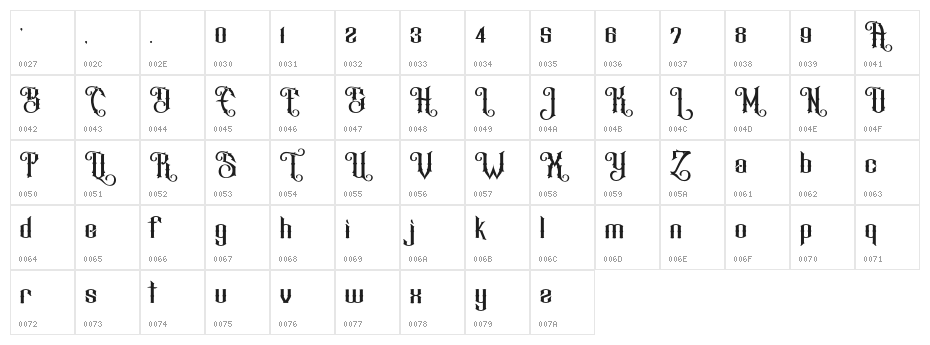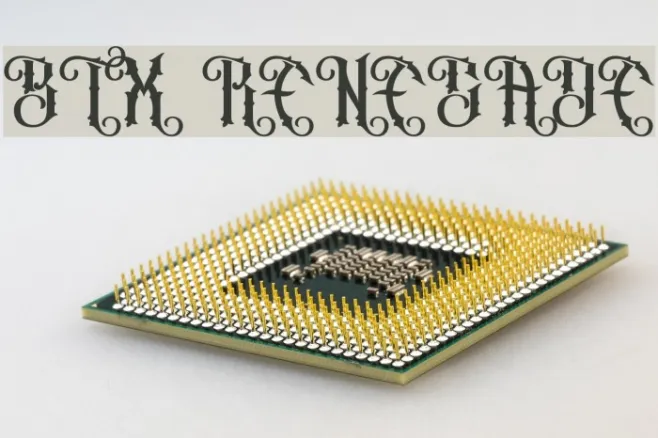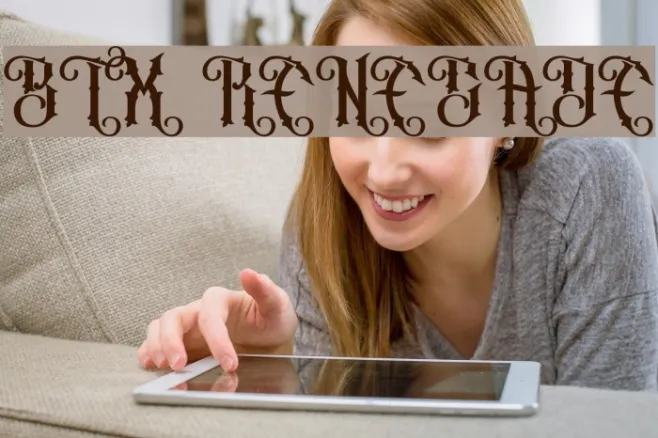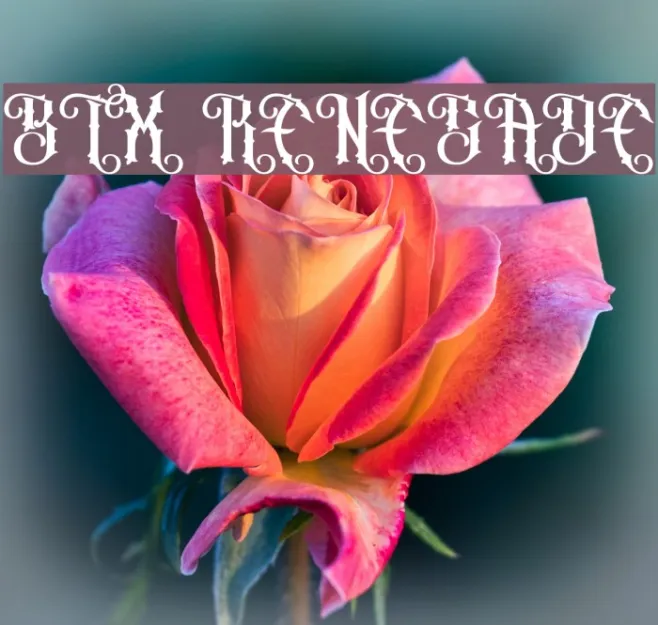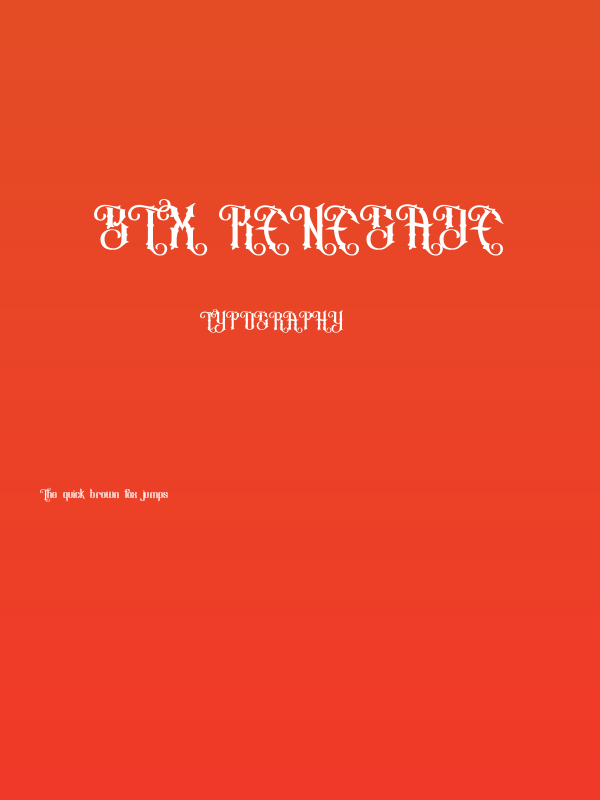
BTX RENEGADE Font
BTX RENEGADE Description
This font features a bold and intricate design that draws inspiration from Gothic and medieval styles. The uppercase letters are adorned with elaborate flourishes and sharp edges, creating a sense of drama and elegance. The lowercase letters maintain a consistent weight with a slightly condensed form, adding to the font's unique character. The numerals are stylized to match the overall aesthetic, with angular lines and decorative elements. This font is ideal for projects that require a touch of historical or fantasy flair, such as book covers, posters, or themed event invitations.
| Proposed Projects | Book covers, posters, themed event invitations, fantasy-themed designs. |